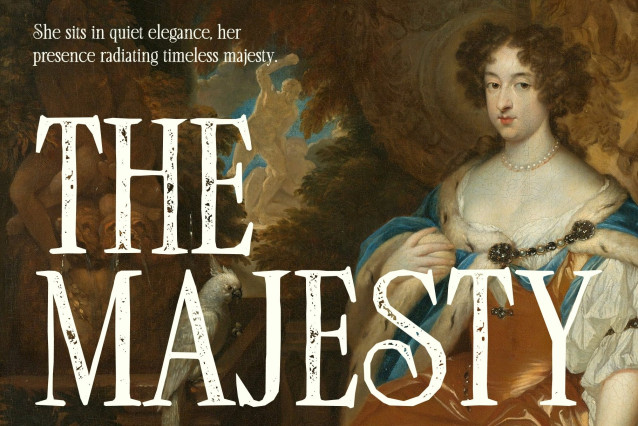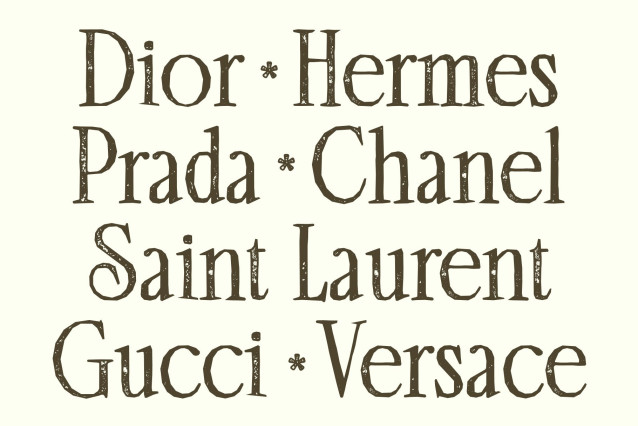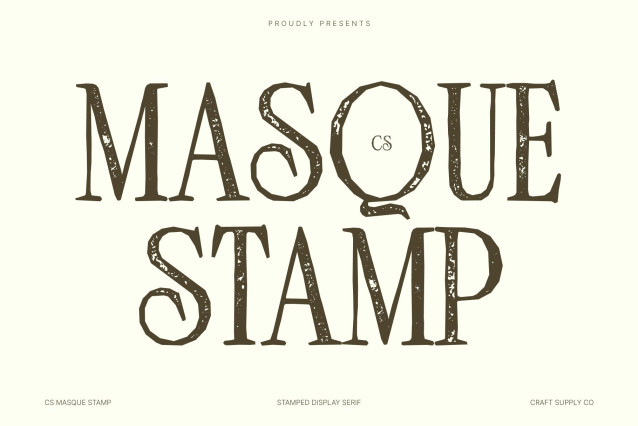
CS Masque Stamp Font
CS Masque Stamp – Condensed Serif with Elegant Precision
Modern Minimalism with Classic Sophistication
This is a refined condensed serif that blends timeless elegance with contemporary simplicity. Its clean structure and graceful proportions create a polished aesthetic, while the stamp texture introduces subtle imperfections that add warmth, depth, and a vintage-inspired character.
Tall, Narrow Letterforms for Sleek Composition
Defined by its slender and vertical proportions, this font brings a sense of height and sophistication to layouts. The condensed width allows designers to fit more text into limited space without sacrificing elegance or readability perfect for stylish and space-conscious compositions.